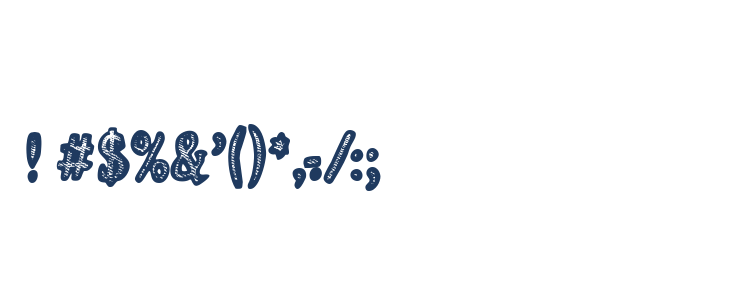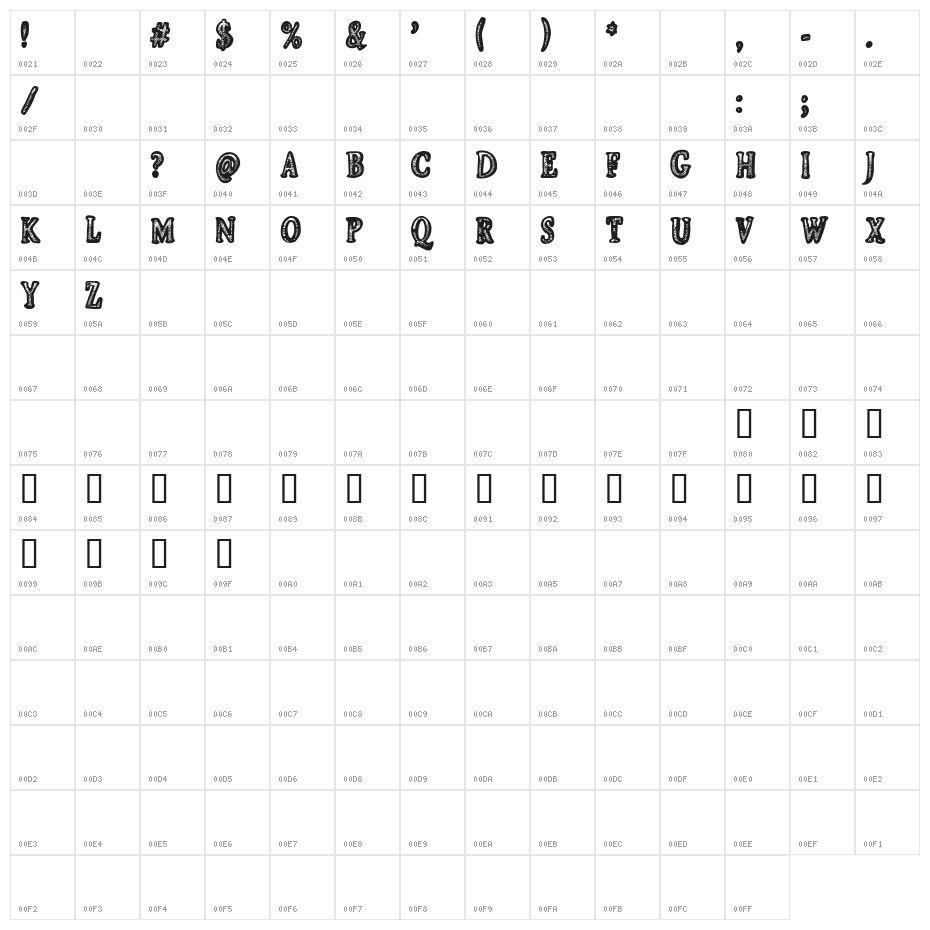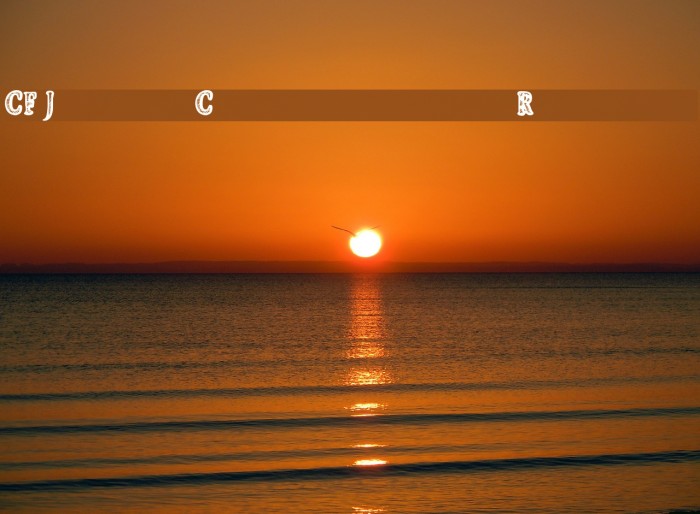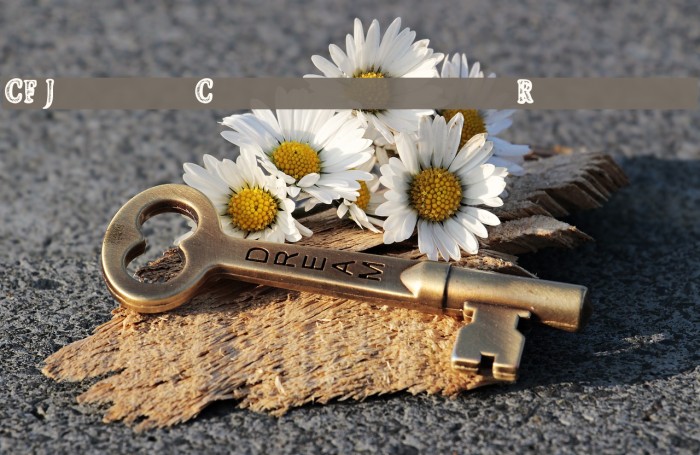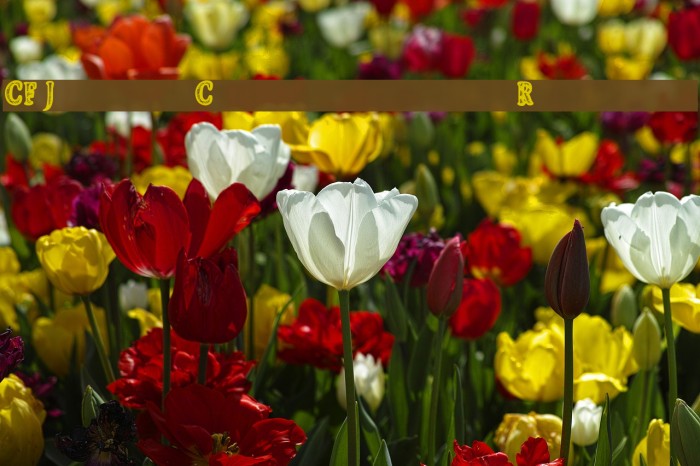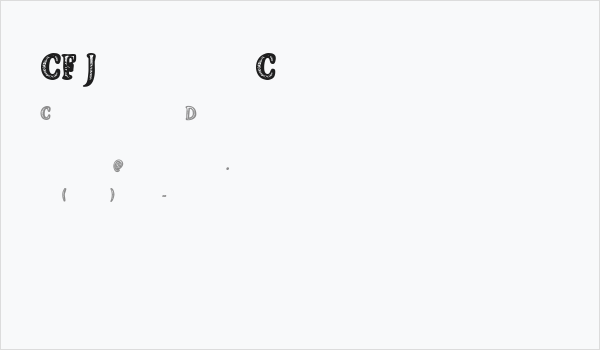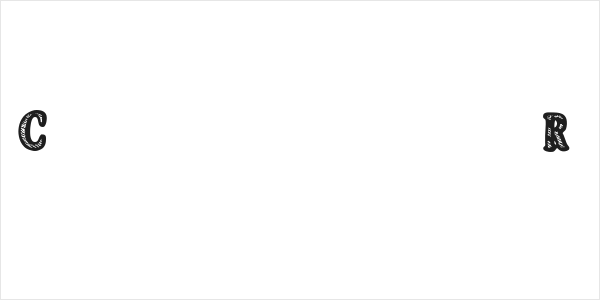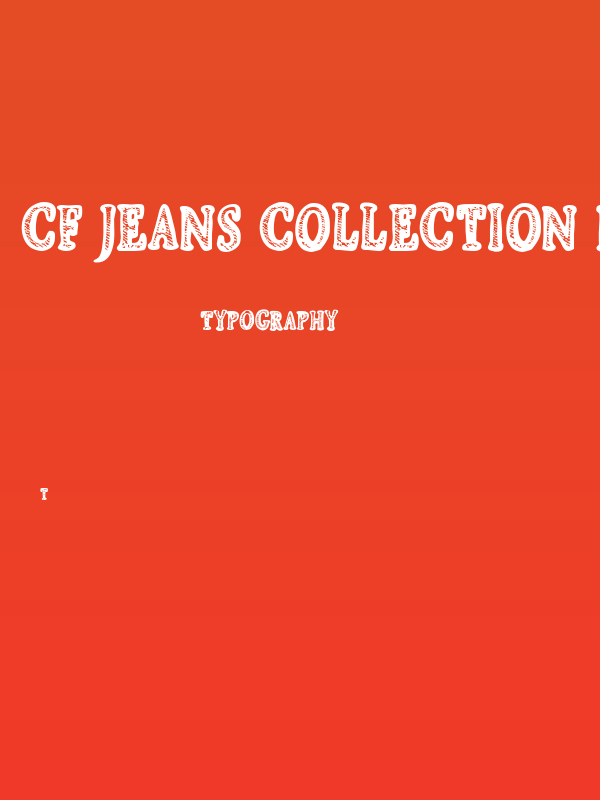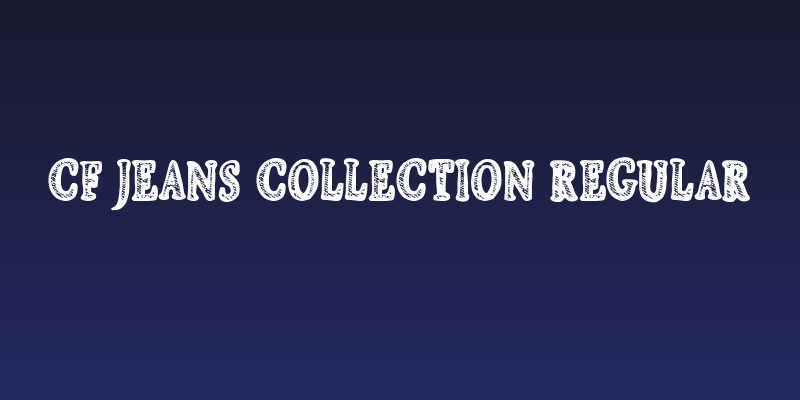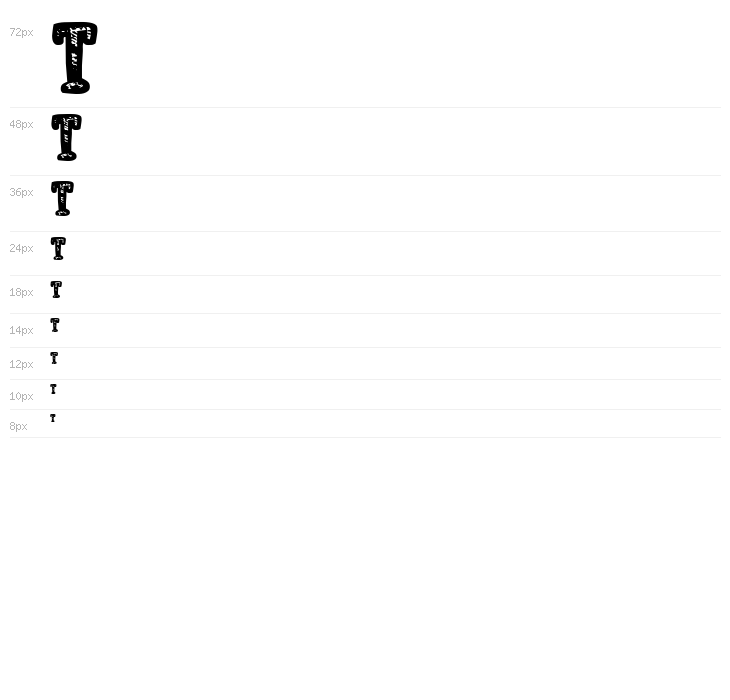
CF Jeans Collection Regular Font
CF Jeans Collection Regular Description
This font features a bold, textured style reminiscent of denim fabric, with a playful and rugged appearance. Each character is filled with a pattern that mimics the look of stitched or worn material, giving it a unique, handcrafted feel. The uppercase letters are prominent and sturdy, while the special characters maintain the same textured aesthetic, ensuring consistency across all glyphs. The font's design is both eye-catching and versatile, suitable for projects that require a touch of creativity and individuality.
| Use Case | Logos, Posters, Apparel Design |
| Proposed Projects | Ideal for branding, apparel design, posters, and creative projects that require a distinctive, rugged look. |